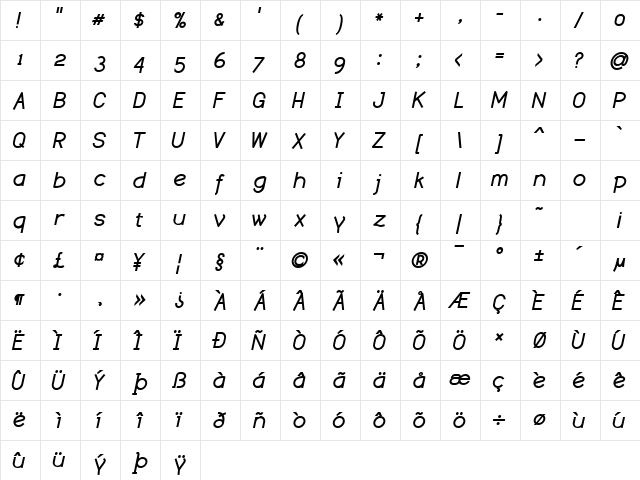
Dustismo Regular Font Preview
Dustismo Regular
Dustismo Regular Font Details
| Designer | Dustin Norlander |
Design Context for Dustismo Typeface
Dustismo takes a measured approach to typography — its balanced proportions and neutral character make it a reliable workhorse for both digital and print work.